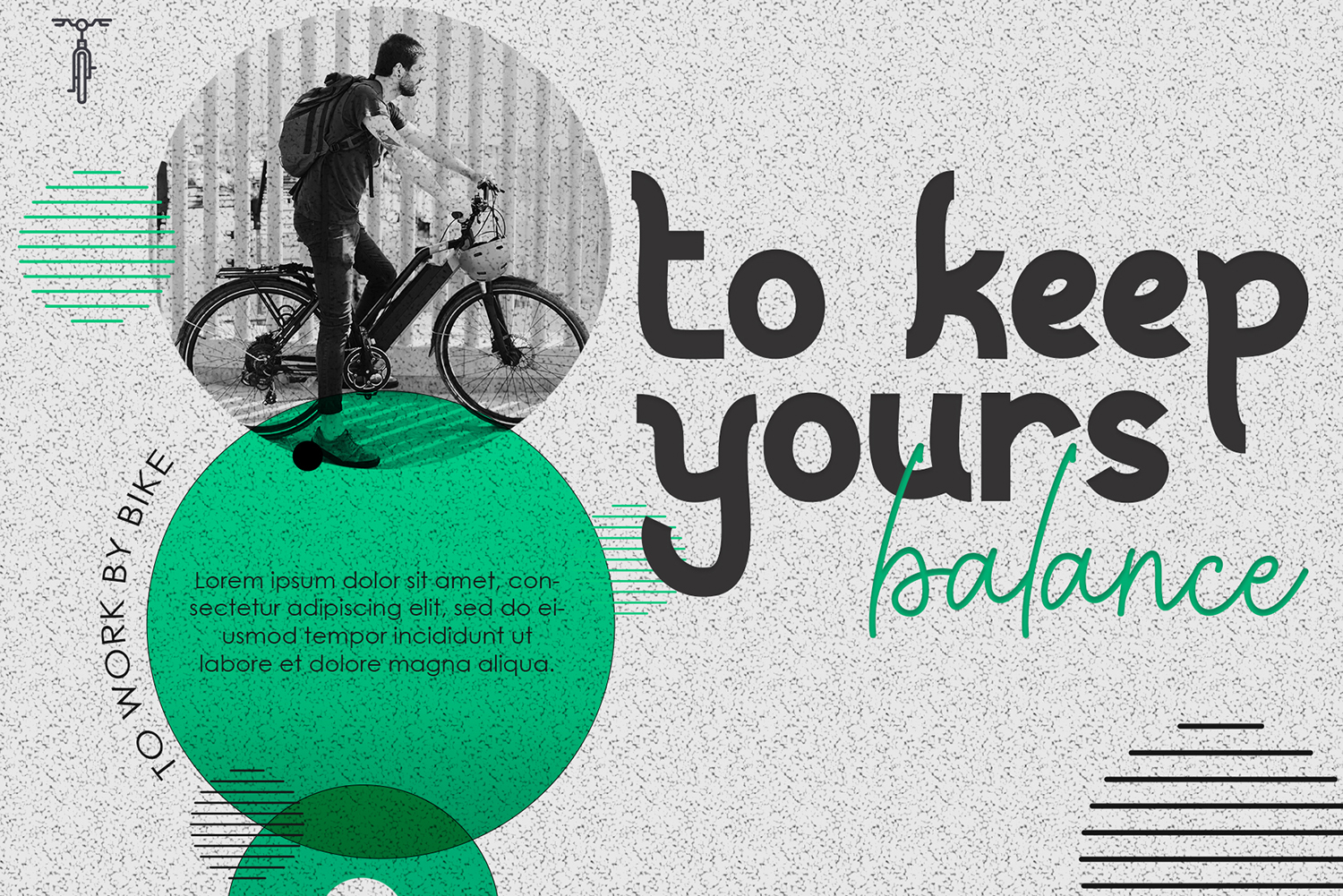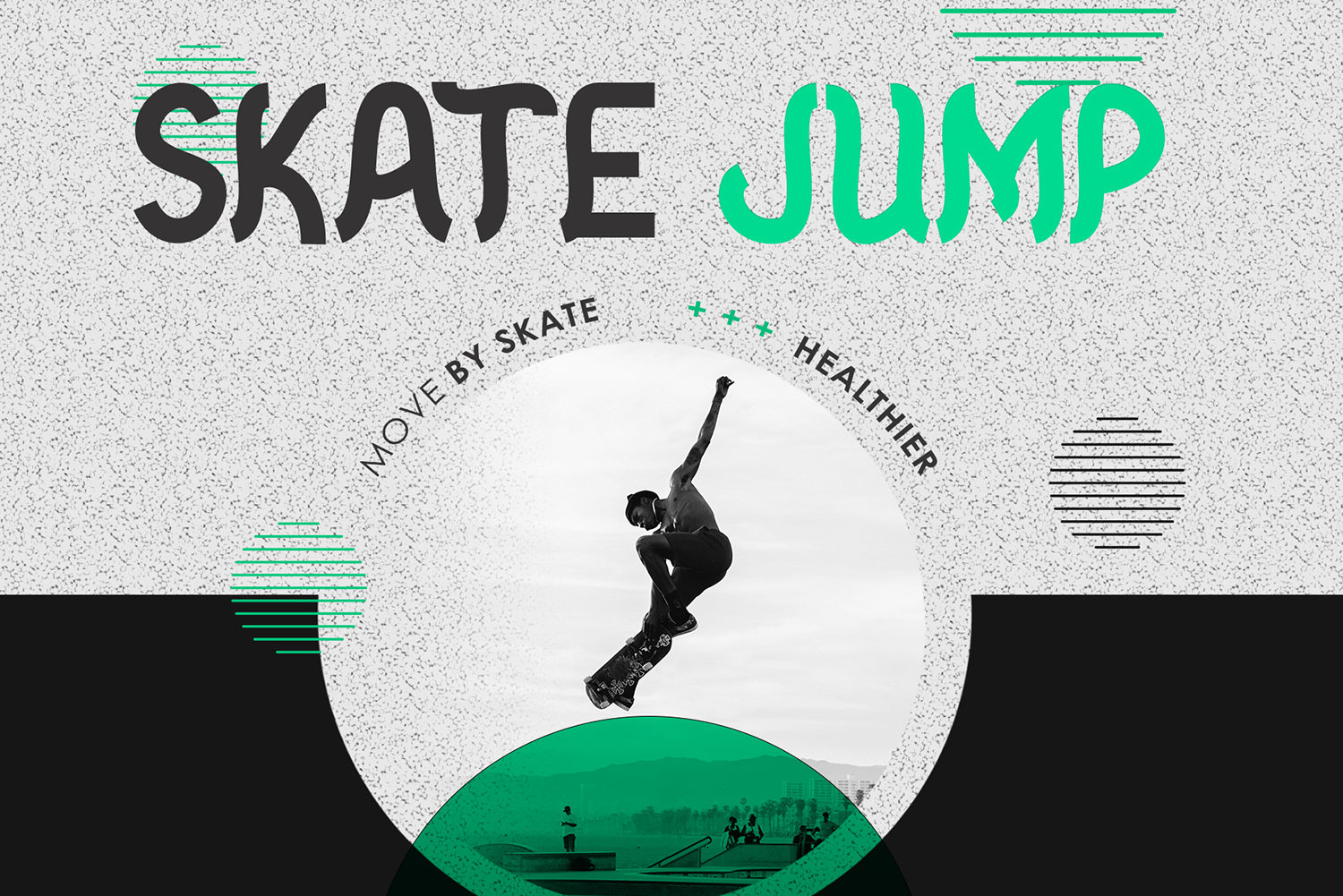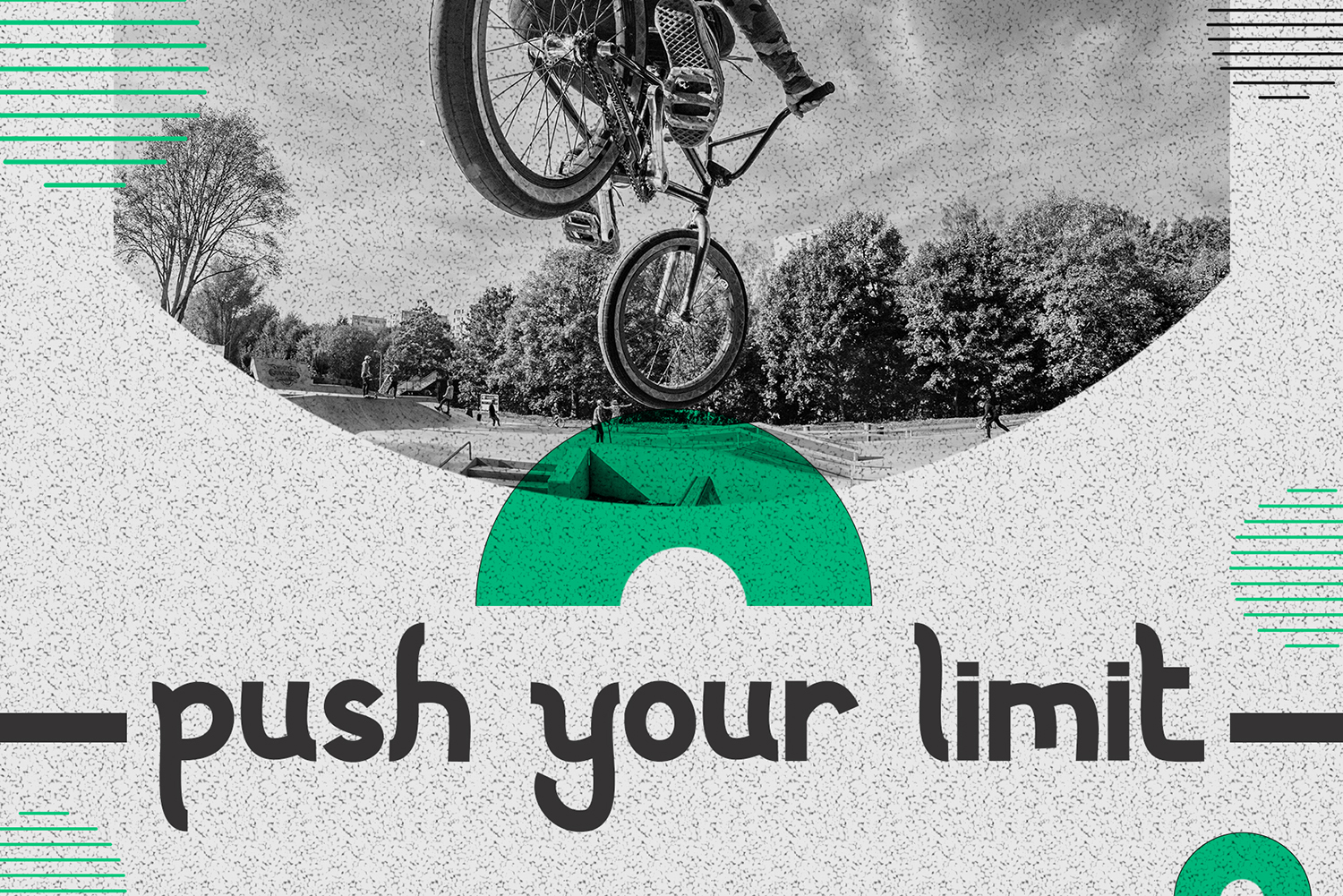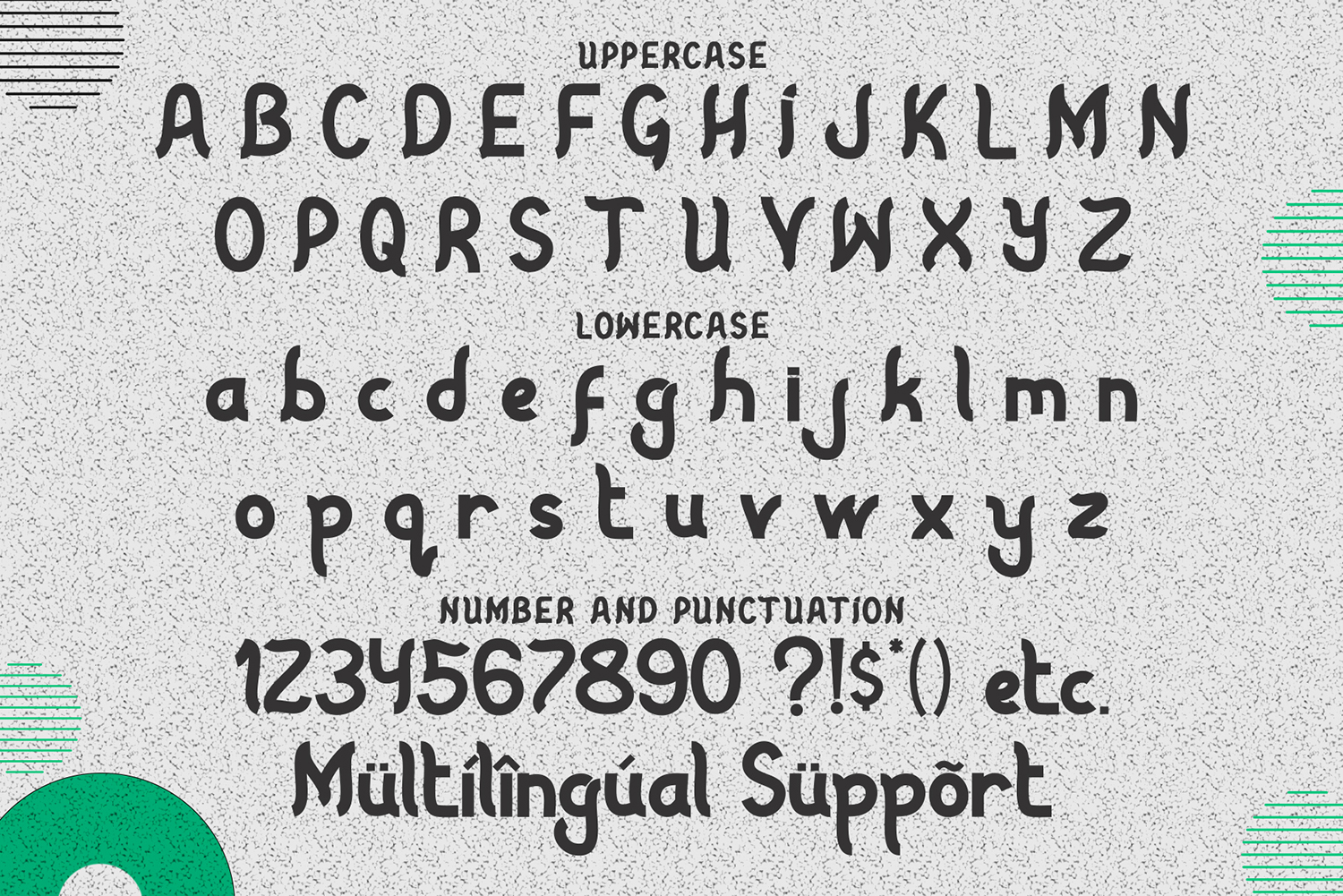
Voklea Free Font
Voklea Free Font is a cool, bold and trendy looking display font. Whatever the topic, this font will be a wonderful asset to your font library, as it has the potential to enhance any creation. This free typeface was designed by a talentedΒ Alif Ryan Zulfikar. If you like it don’t forget to check out the full version.